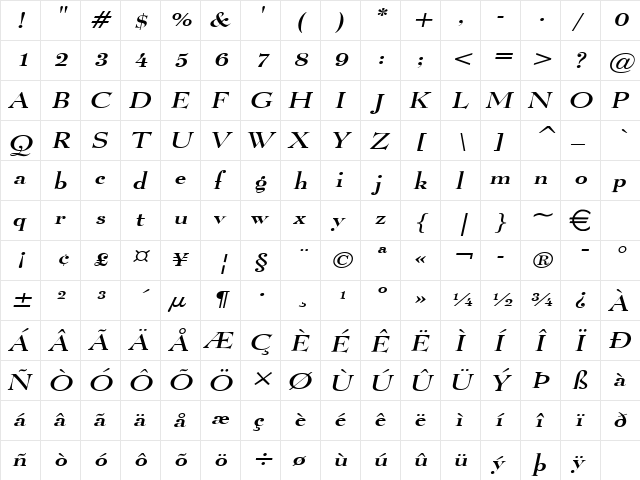
LucianoWide Italic
Design Context for LucianoWide Typeface
LucianoWide is a composed and adaptable typeface that performs quietly and consistently across a wide range of design contexts. Its italic angle brings a sense of urgency and motion to the letterforms.
Pro Tip: Try LucianoWide for annotation and caption copy alongside an upright companion — the contrast in angle creates a dynamic but ordered typographic system.